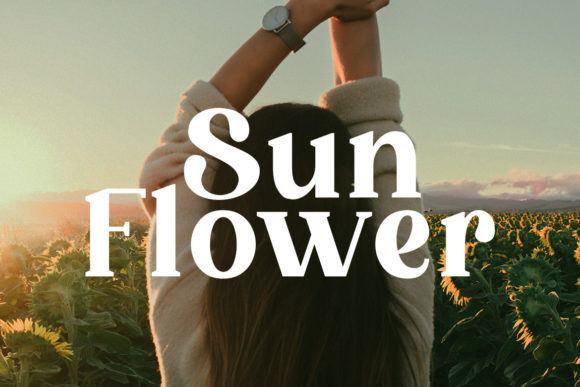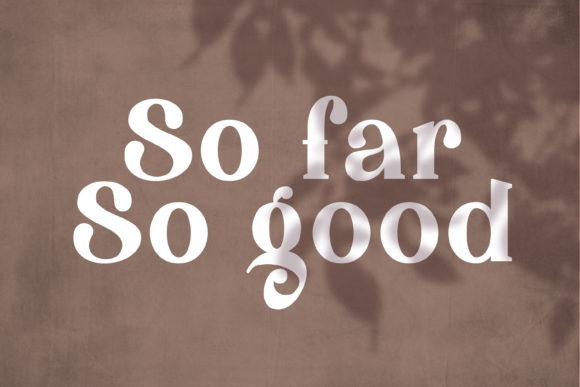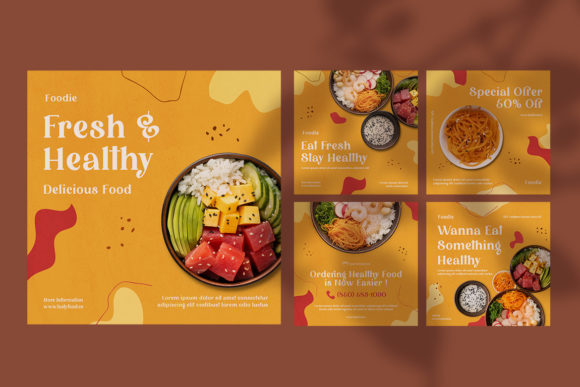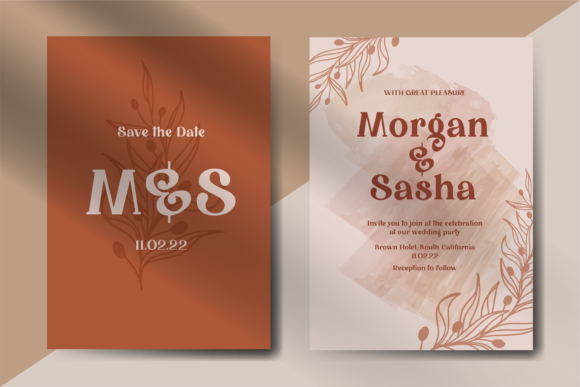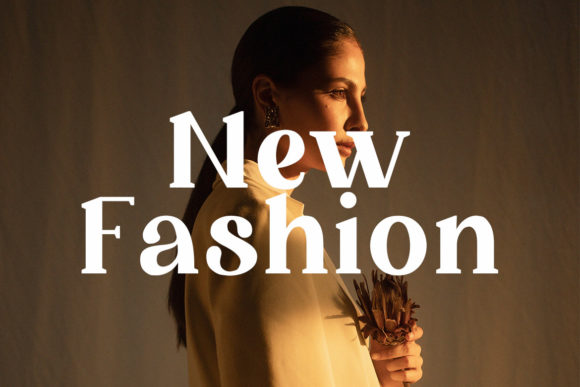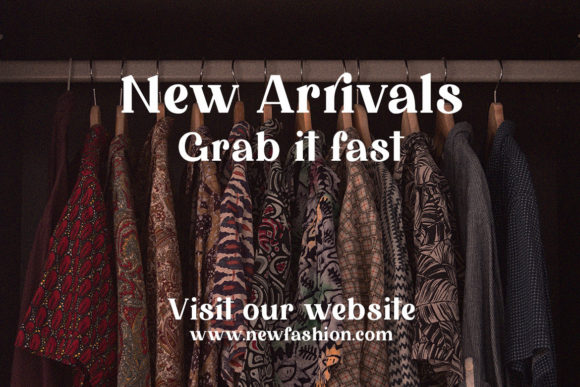
Introduction to Muriely Font Font
Fonts play a crucial role in design, and the Muriely Font font is a typeface that brings both character and versatility to any project. Whether you’re working on a branding project, a website, or a print design, the Muriely Font font offers a unique style that can elevate your work.
Muriely is a cool, trendy and thick lettered serif font.
It is defined by smooth curves and is perfect for fashion branding or editorial designs Add it confidently to your projects, and you will love the results.
The Muriely Font font is more than just a typeface – it’s a design tool that helps you communicate your message with style and clarity. Its unique character set and versatile design make it suitable for a wide range of applications, from elegant invitations to bold headlines.
With its carefully crafted letterforms and balanced proportions, the Muriely Font font ensures readability and visual appeal across all mediums.
The Muriely Font font stands out with its unique design, exceptional readability, and versatility across various design applications.